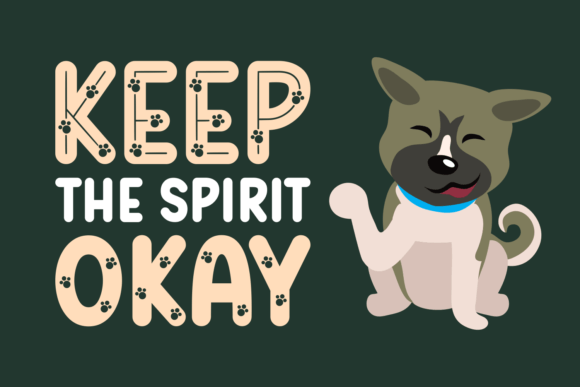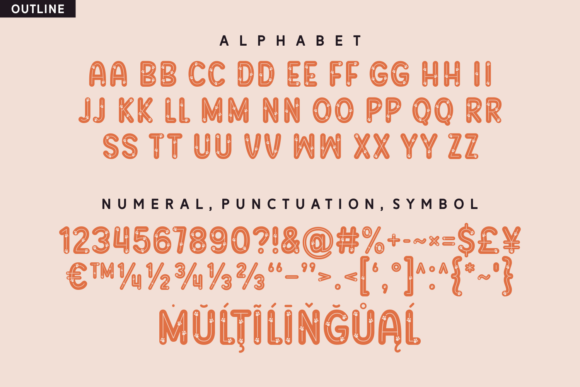
Cute Paws Font
Cute Paws is a sweet and adorable decorative font. Whether you use it for cartoon-related designs, children’s games, or just any creation that requires a lovely touch, this font will be an amazing choice.